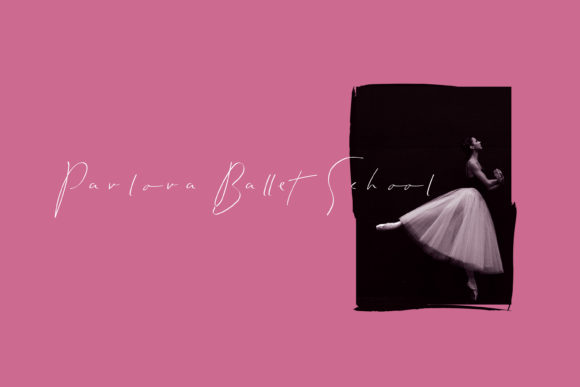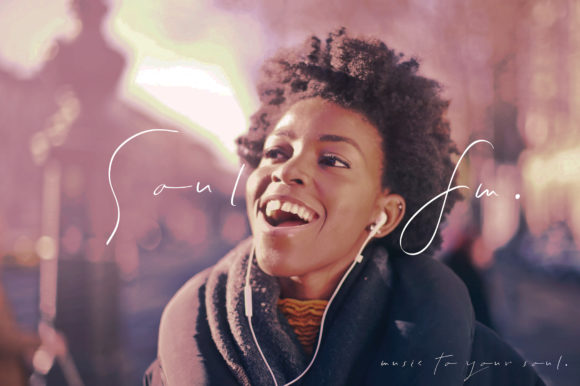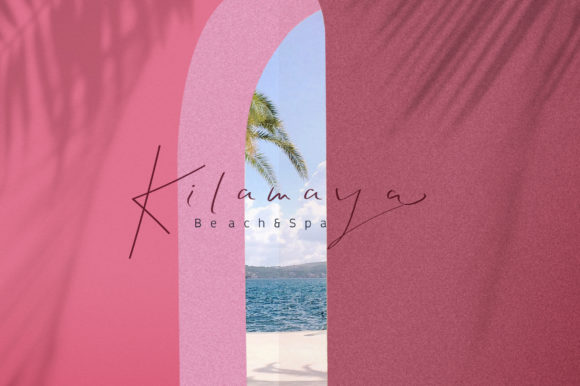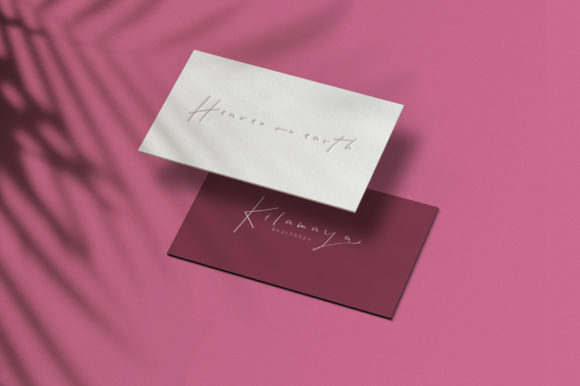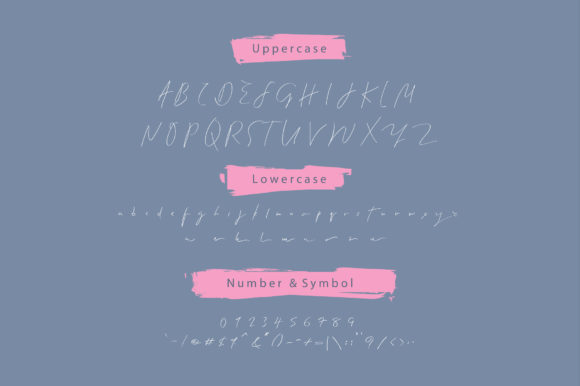
Amillia Font
About Amillia Font
Amilia is sweet and delicate handwritten font. Fall in love with its incredibly versatile style and use it to create gorgeous wedding invitations, beautiful stationary art, eye-catching social media posts, and much more!